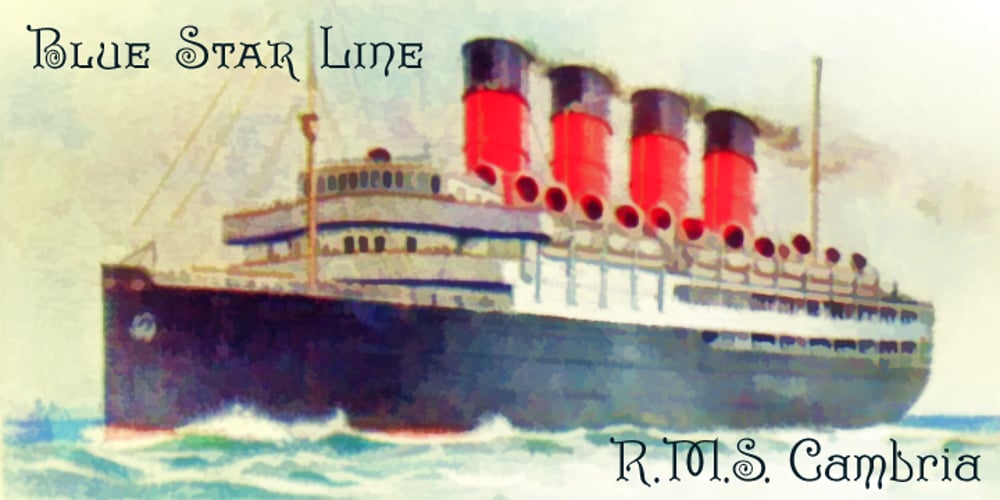
Admiral Font Family was designed by Paul James Lloyd and published by Greater Albion Typefounders. Admiral contains 2 styles and family package options. Admiral was inspired by and extrapolated from the Art Nouveau lettering incised into the facade of a local hostelry. This gave us some inspiration for the capitals ‘A’, ‘B’, ‘C’, ‘E’, ‘H’, ‘I’, ‘L’, ‘O’, ‘S’, ‘T’ and ‘U’; we then had great fun extrapolating the rest! The source of the name Admiral can be spotted if you look at characters such as ‘A’, ‘H’ and ‘N’. Admiral’s distinctive charm and humour lends it to projects with a 1900s Art Nouveau theme, be they book covers, posters, signage, invitations, cards, or anything else you enjoy!